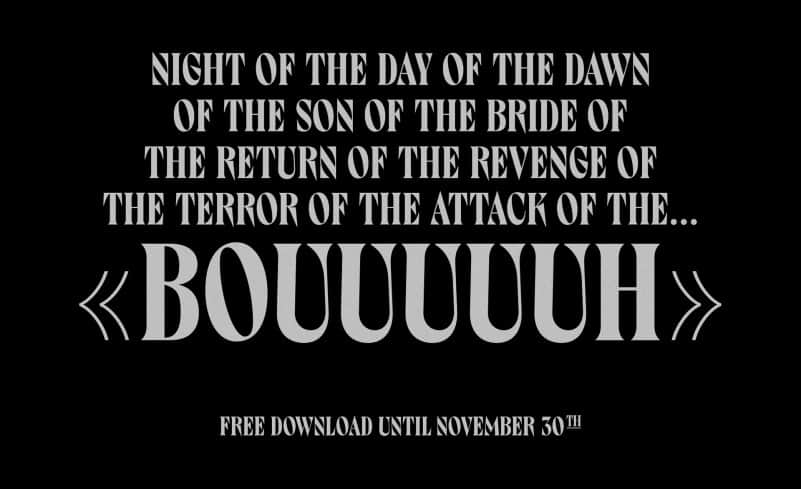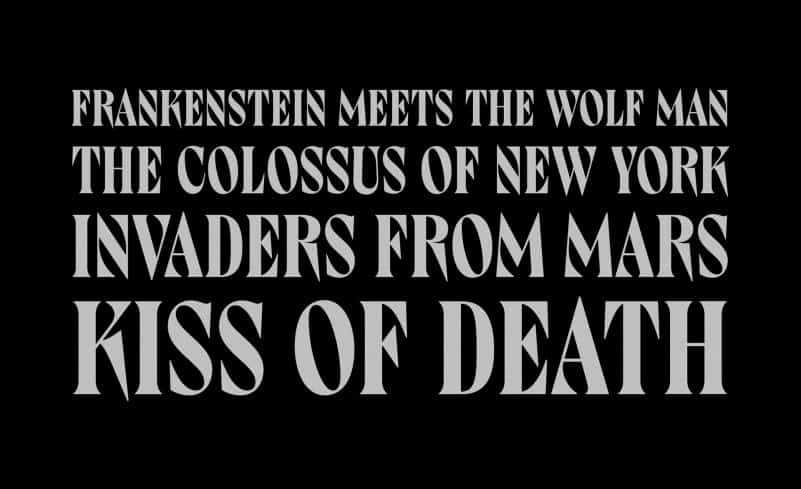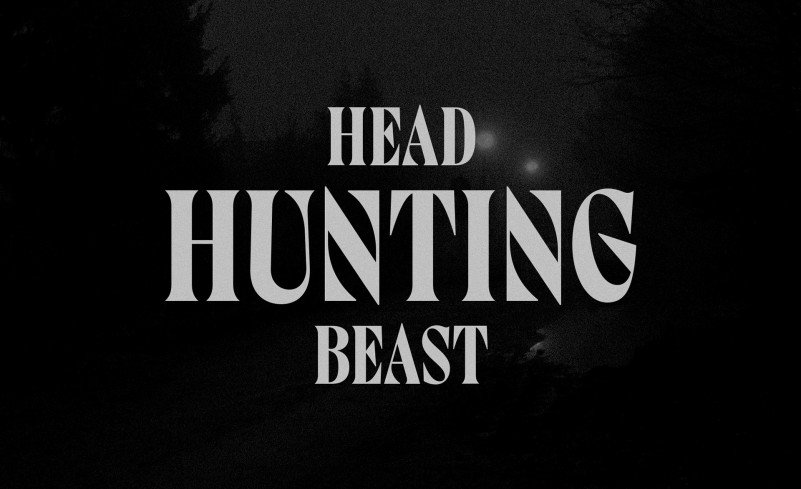
Bouuuuuh Revenge – Display Font
Introducing Bouuuuuh Revenge Display Font! It is designed by Lift Type. A modulated display sans font family. It enriched by letterforms that shown a simple, classic and elegant impression. Bouuuuuh Revenge – Display Font is now a collection of all cap Typefaces, inspired by old comic tilting. A cool excuse for experimenting a mix between scary and funny. This font is fit for display, large usage, brand, titles, short text, web headlines and ample of other possibilities.